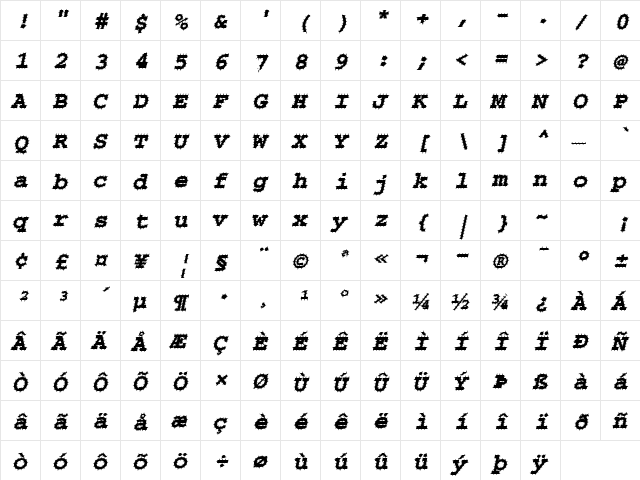
Chisel-Spiked Italic
Design Context for Chisel-Spiked Typeface
Chisel-Spiked takes a measured approach to typography — its balanced proportions and neutral character make it a reliable workhorse for both digital and print work. The dynamic lean of this cut emphasises speed and emphasis in any layout.
Pro Tip: Use Chisel-Spiked for emphasis, pull quotes, and subheadings where its slanted energy can add rhythm to the layout.